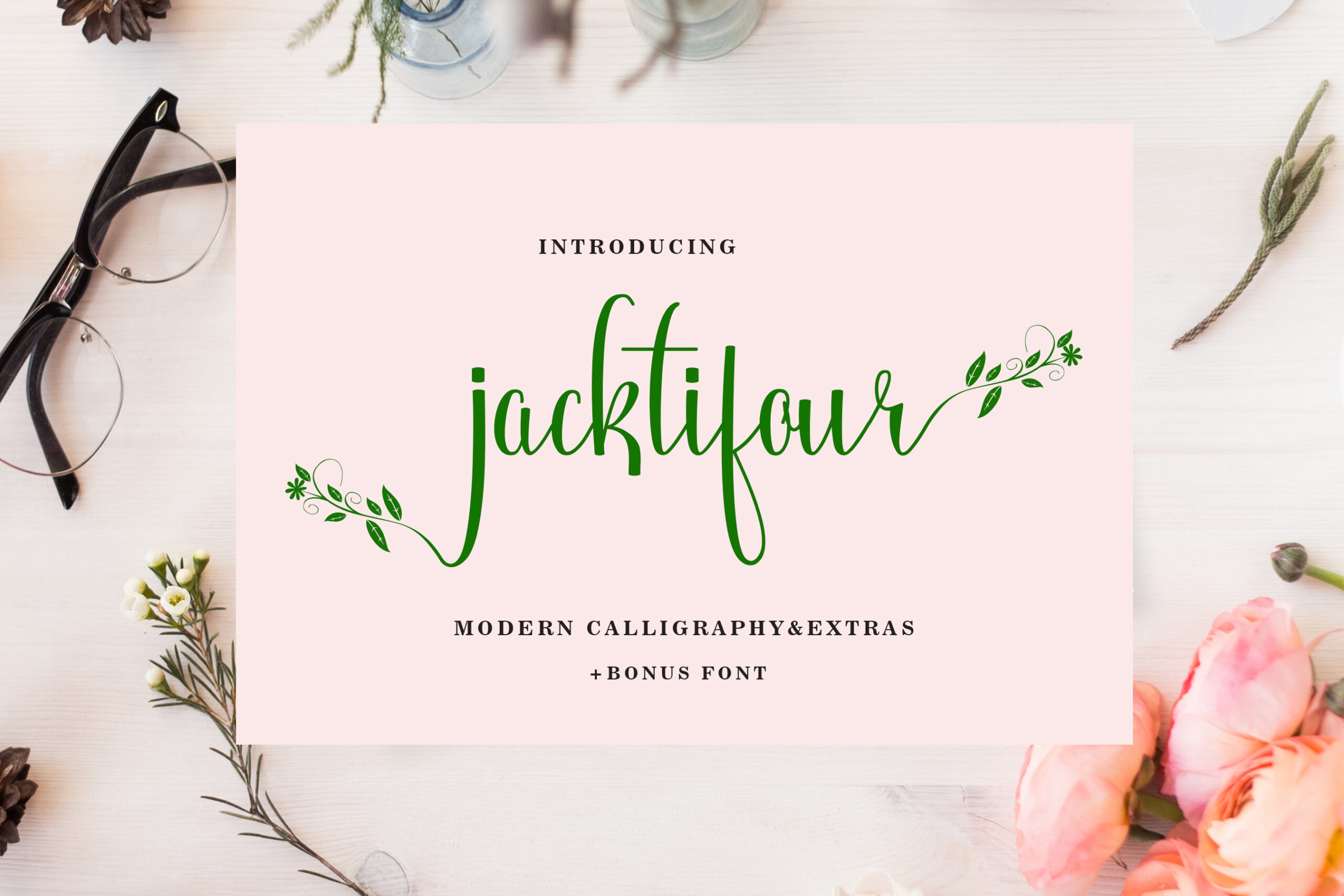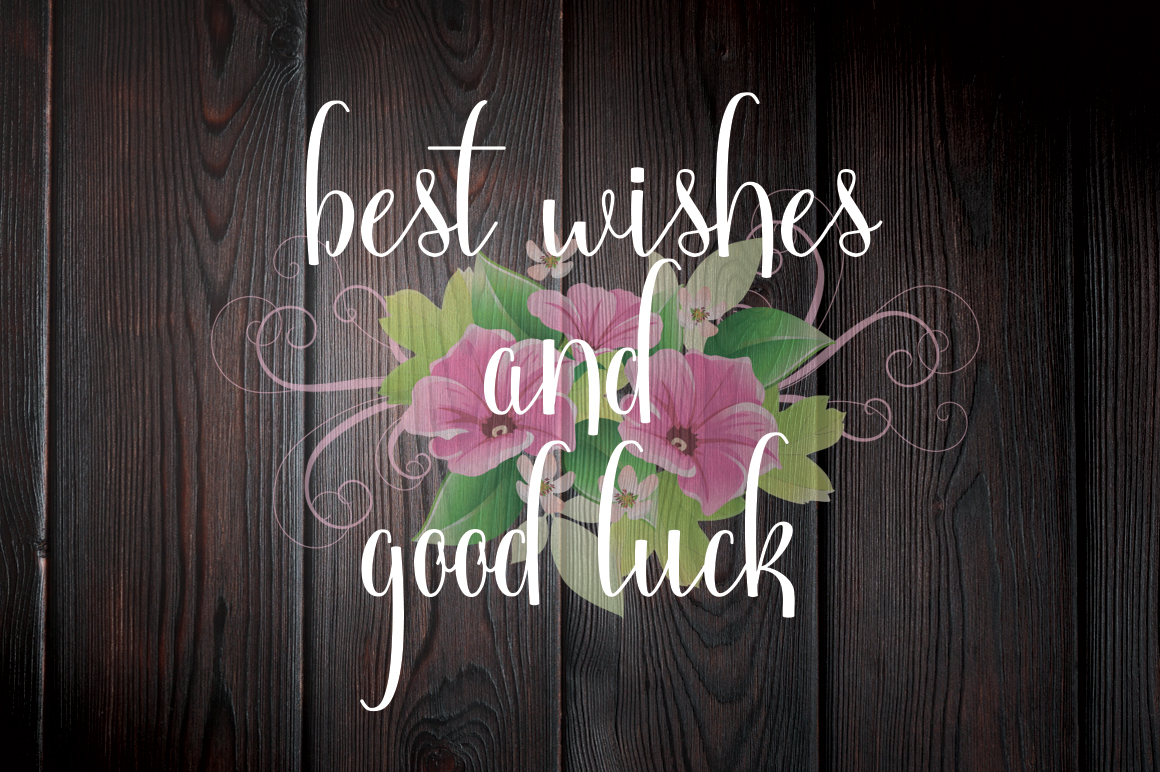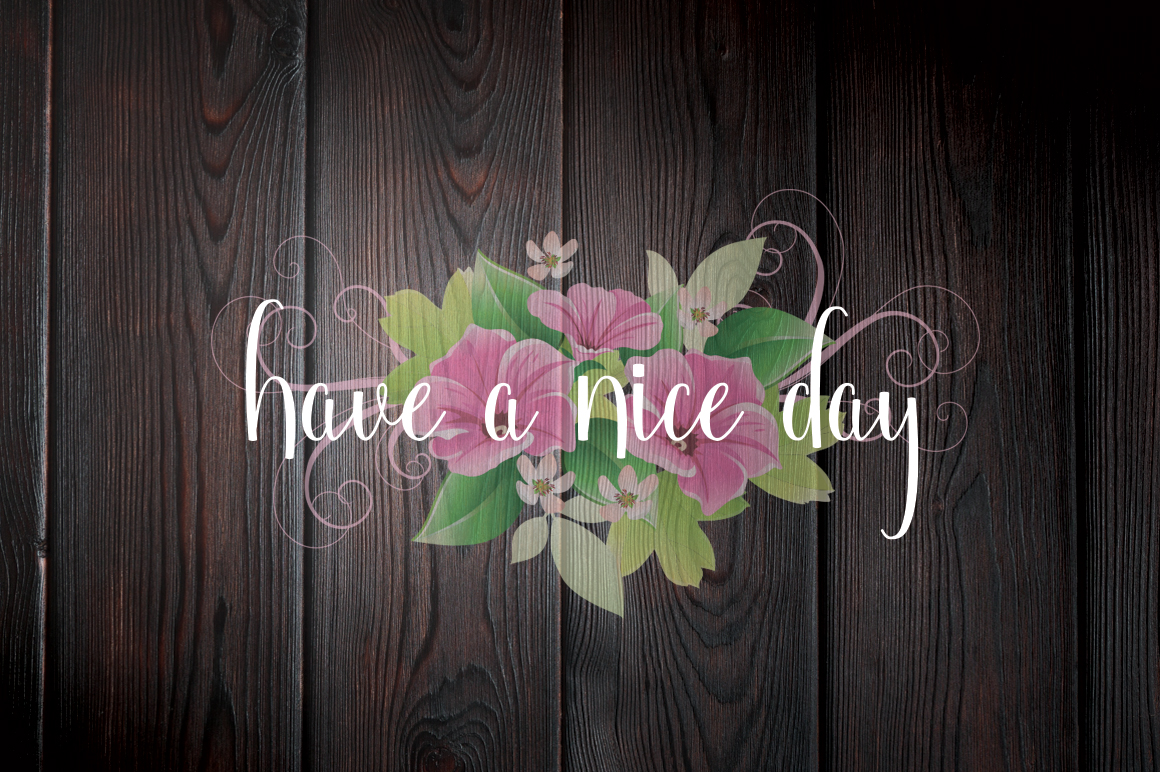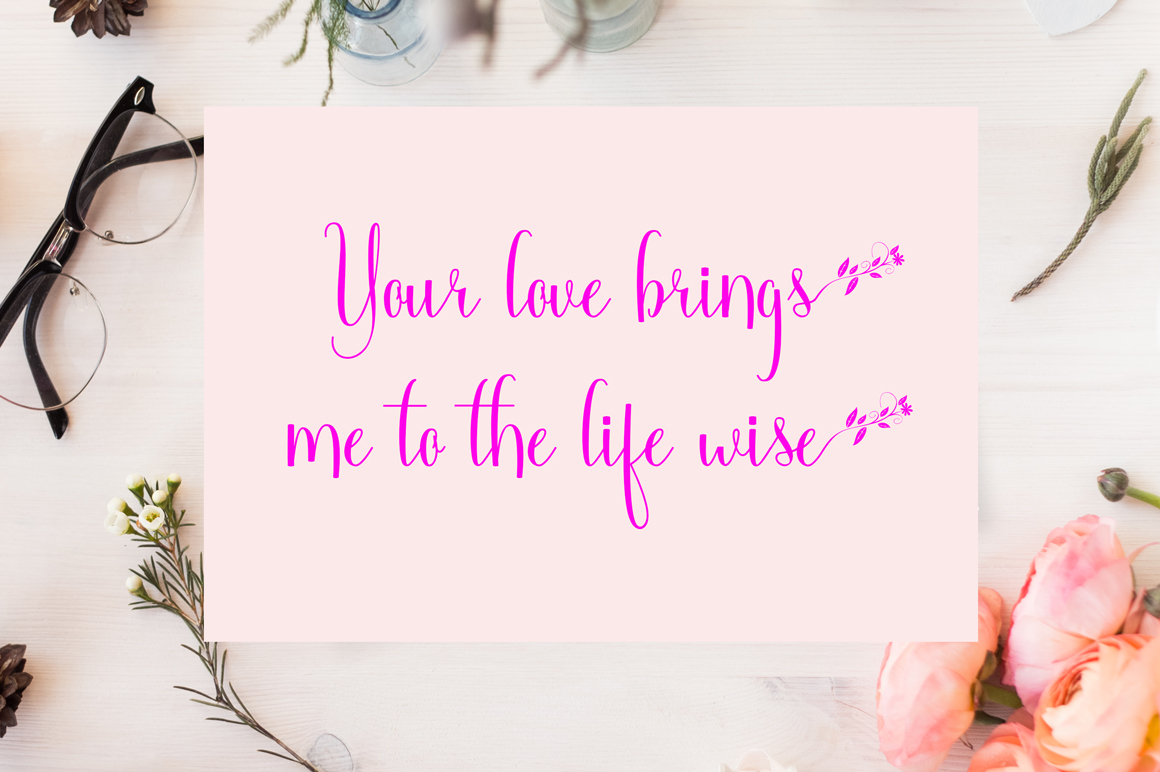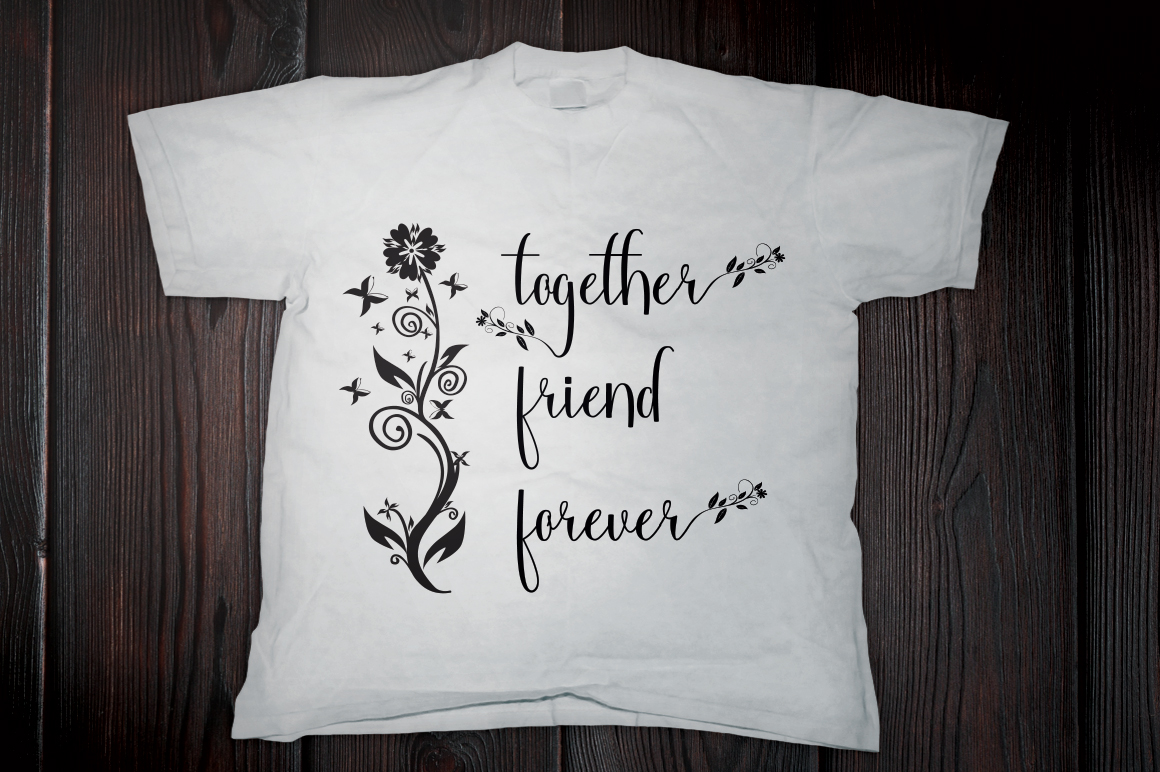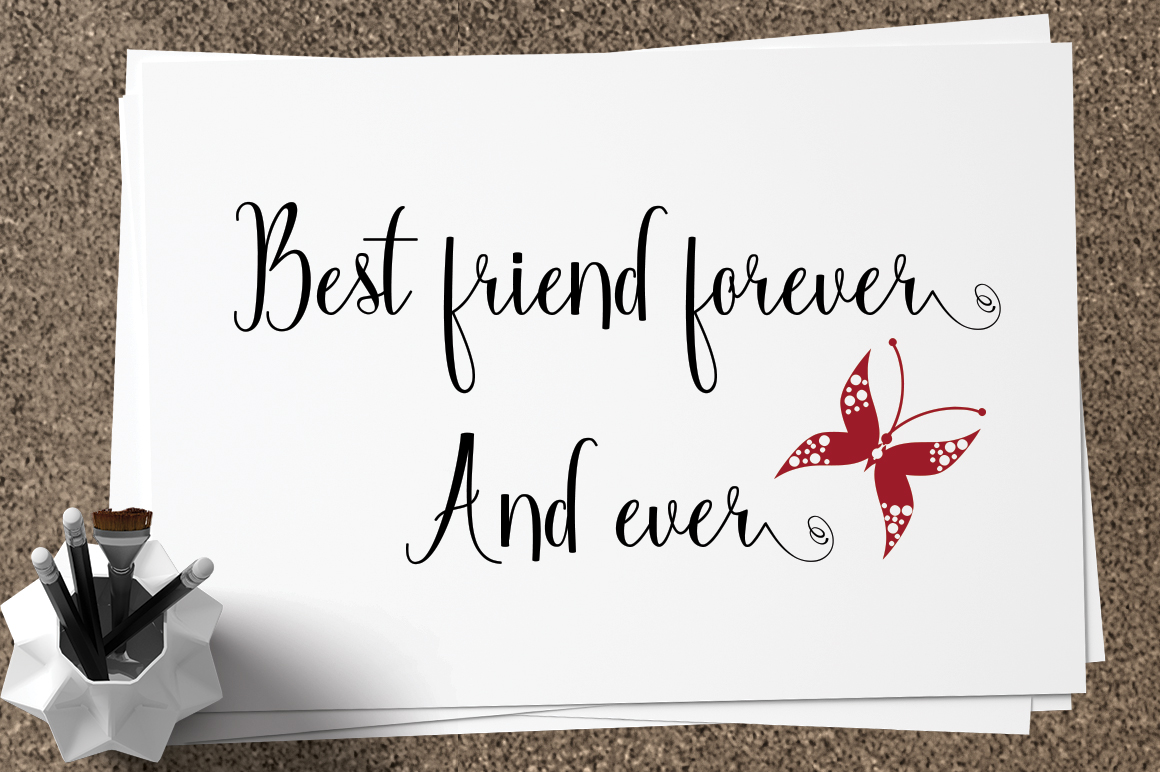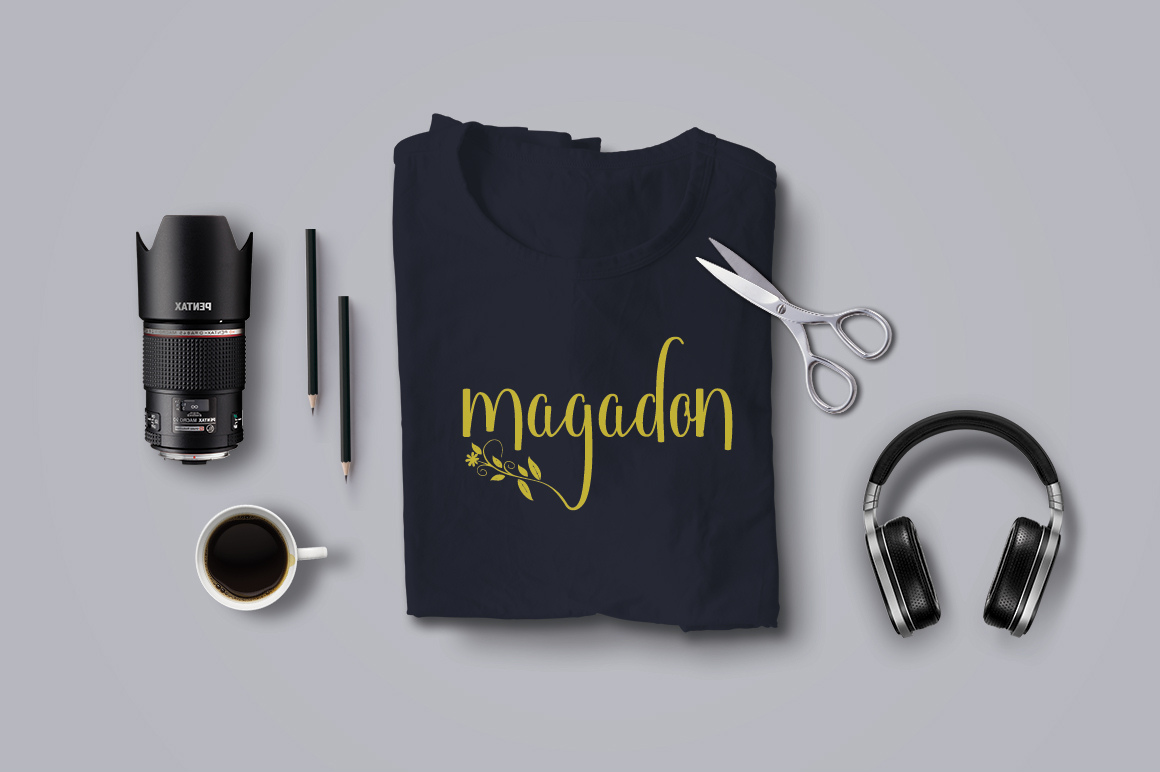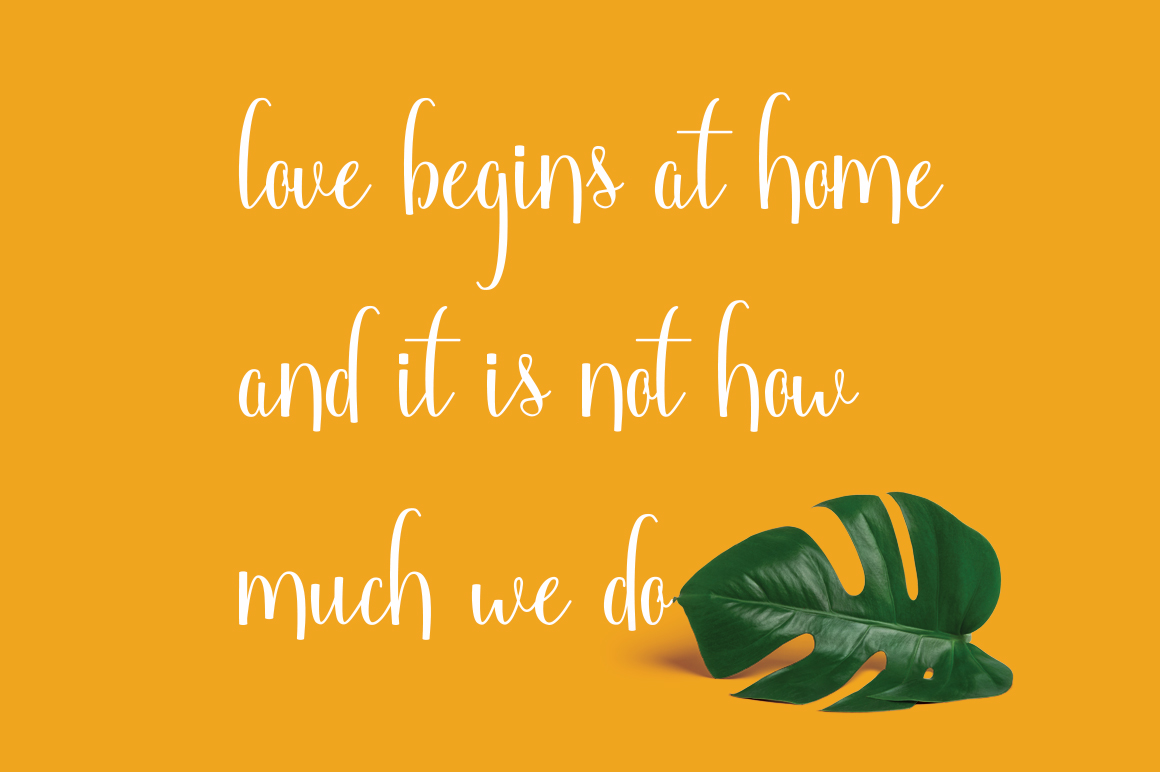
Jacktifour Font
About Jacktifour Font
Jacktifour is a gorgeous and well balanced hand written font. This font is calligraphy inspired, and will add a certain sophistication and intrigue to your designs.